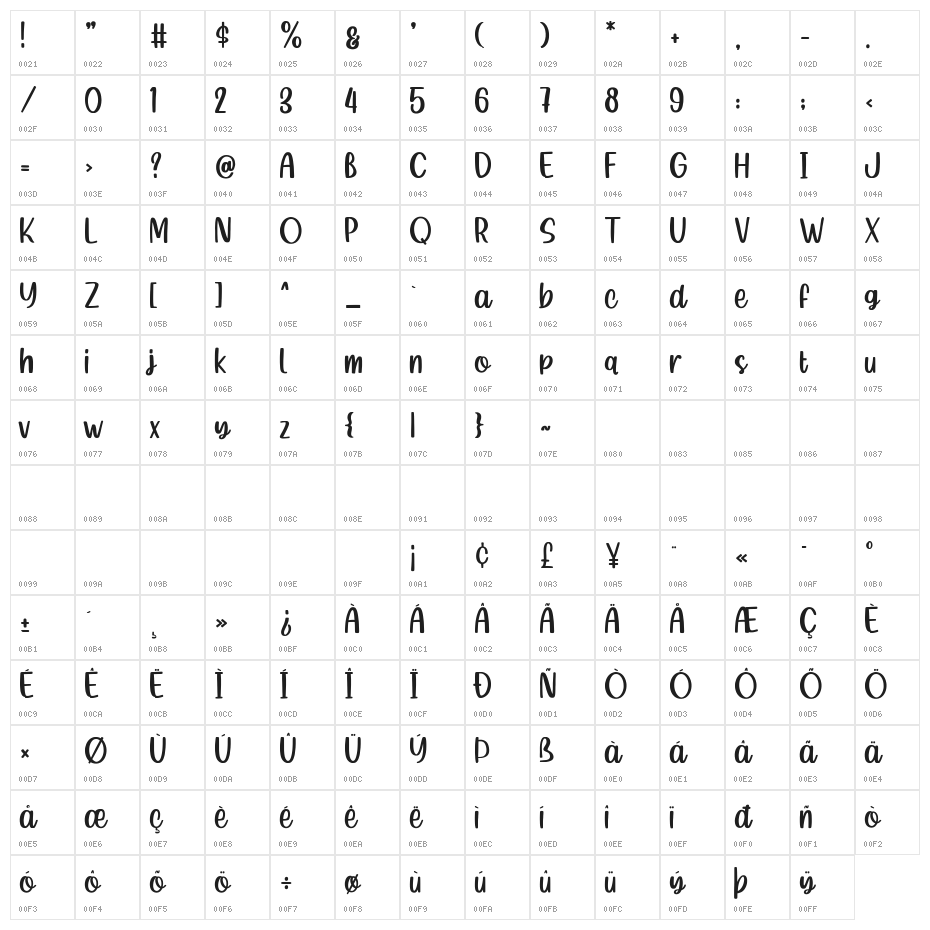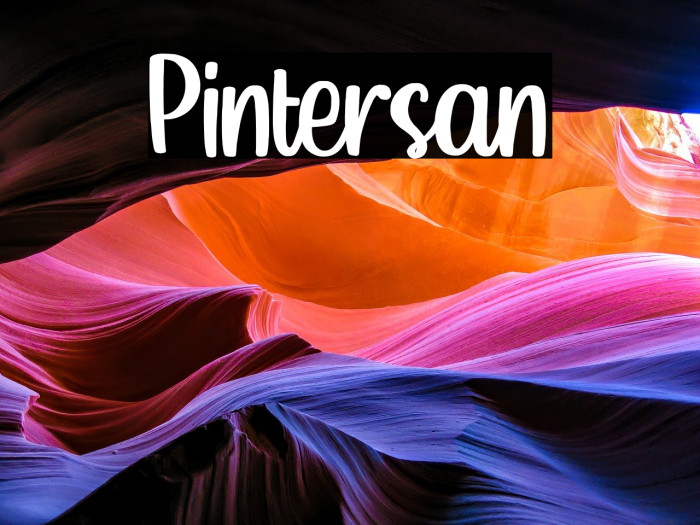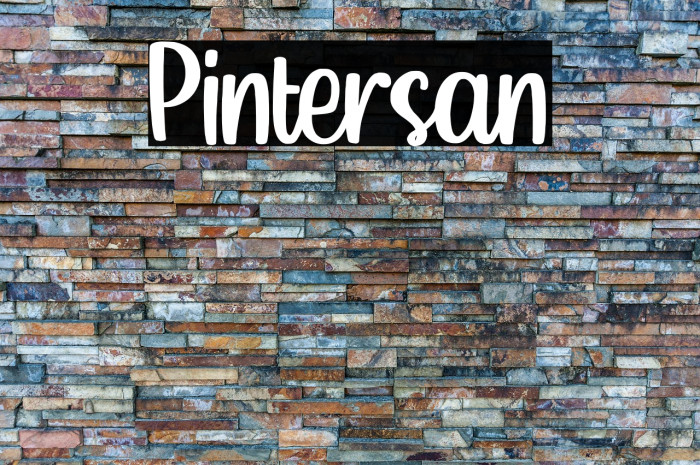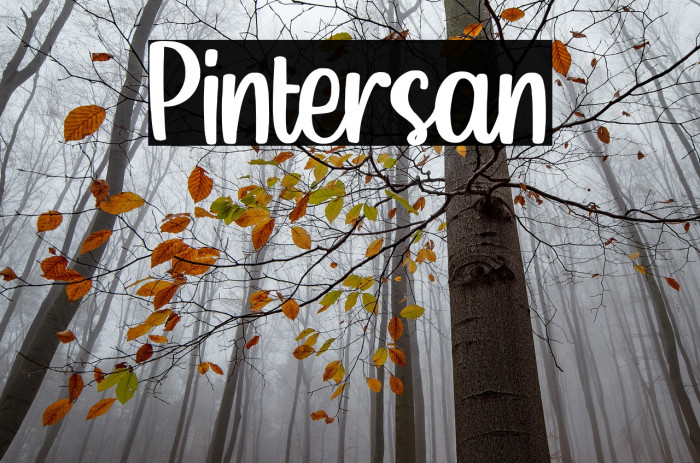
Pintersan Font
Pintersan Description
This font features a playful and casual handwritten style, characterized by its bold and rounded letterforms. The uppercase letters are tall and slightly condensed, while the lowercase letters maintain a consistent flow with a slight slant, adding to the informal feel. The numerals are clear and easy to read, matching the overall aesthetic. Special characters are included, maintaining the same playful style. This font is perfect for projects that require a friendly and approachable look, such as invitations, greeting cards, or playful branding.
| Width | Condensed |
| Overall Style | Casual, Playful |
| Use Case | Headlines, Logos, Invitations |
| Proposed Projects | Ideal for invitations, greeting cards, playful branding, and casual posters. |